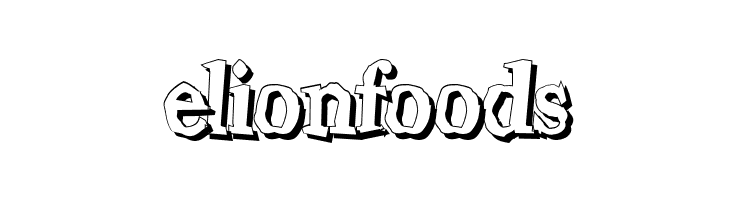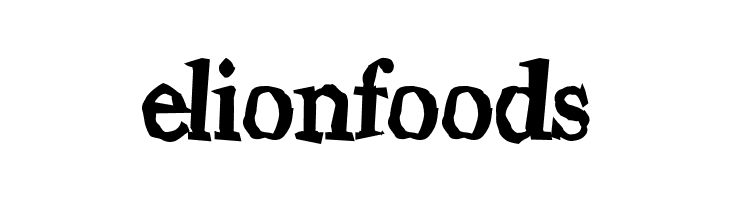
• Whitney2
( Fonts by Ellinor Rapp - www.yourownfont.com OFF SITE )
A playful, hand-drawn font with bold outlines and a cartoonish style.
• Wiggly
( Fonts by Bree Gorton )
A playful, wavy font with a hand-drawn, irregular style.
• Wiggly Shadow
( Fonts by Bree Gorton )
A bold, playful font with a wiggly, shadowed design and hand-drawn style.
• Wildflower
Hand-drawn wildflower dingbat font with intricate botanical illustrations.
• Wildflower II
Botanical dingbat font with wildflower illustrations.
• Wildflower III
Hand-drawn wildflower illustrations and decorative floral frames.
• Wildflower IV
Decorative floral dingbat font with wildflower illustrations.
• WinksFilled
• Wintermute
• Wintermute-Regular
A futuristic, geometric font with consistent stroke width and angular design.